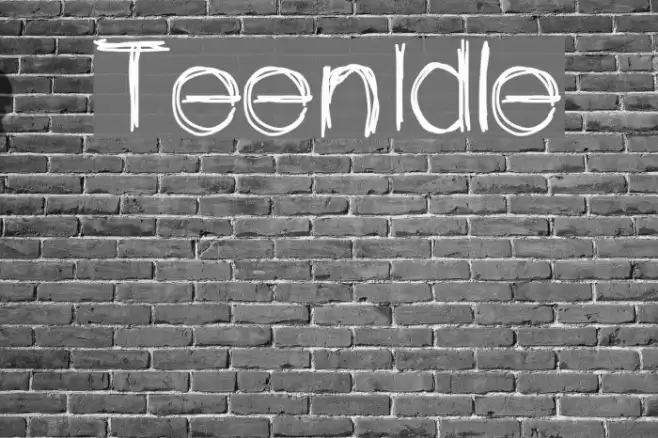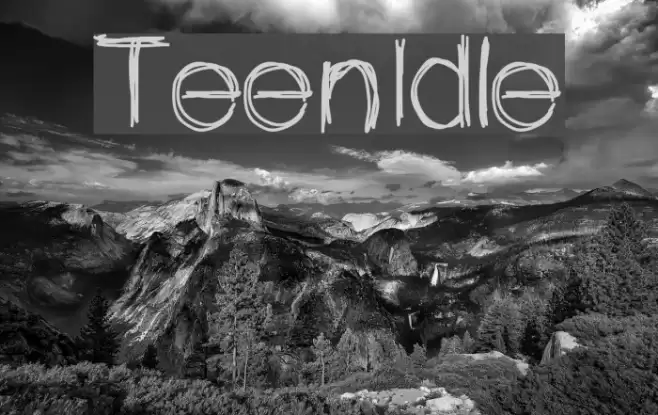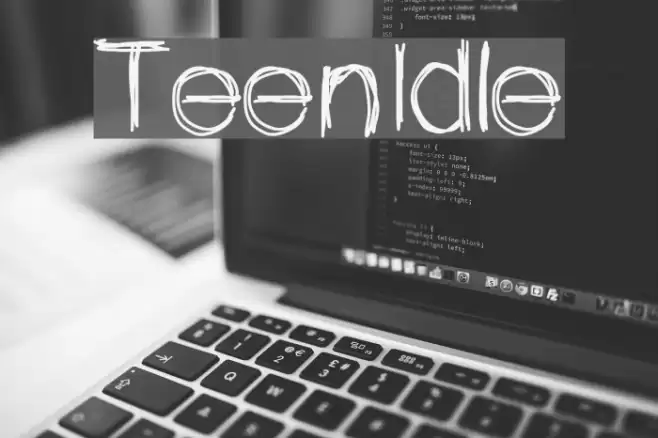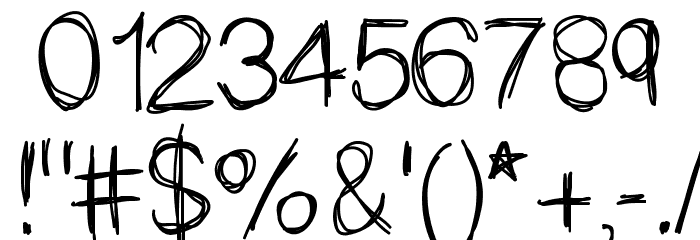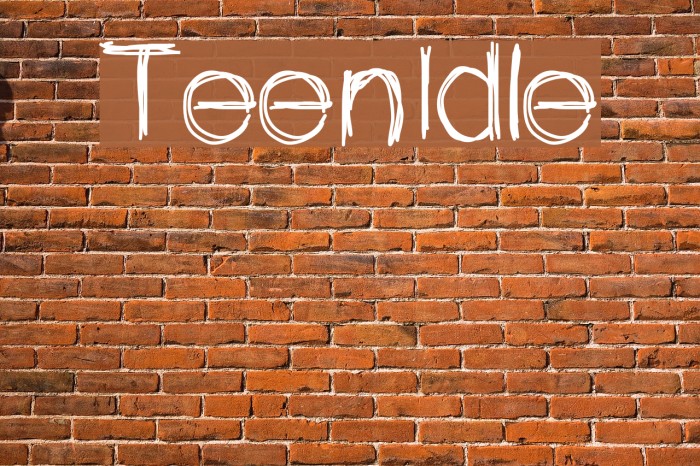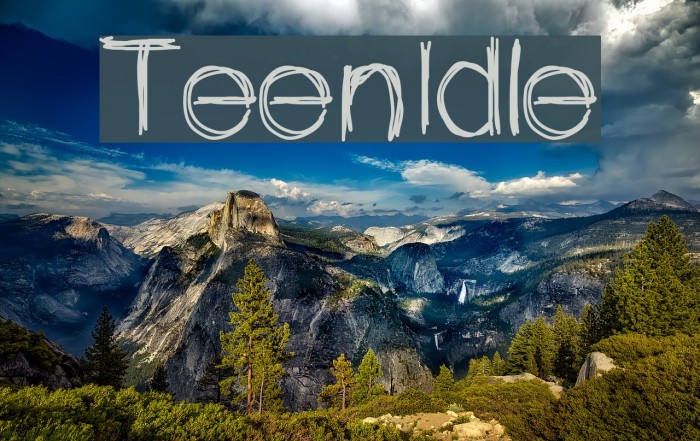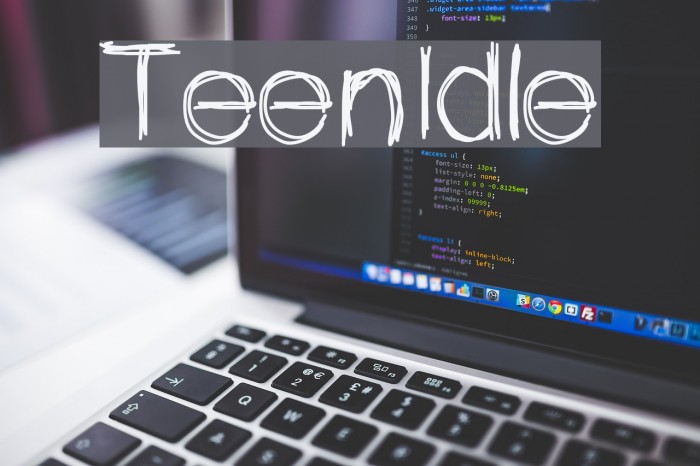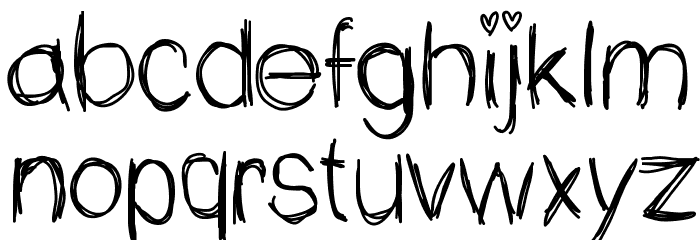
TeenIdle Font
TeenIdle Description
This font features a playful and informal style, characterized by its hand-drawn appearance. The letters have a sketch-like quality with uneven strokes and a slightly whimsical feel. Uppercase and lowercase letters maintain a consistent style, with some letters featuring unique embellishments, such as hearts above the 'i'. The numerals and special characters follow the same playful aesthetic, adding to the font's overall charm. This font is ideal for projects that require a casual and fun vibe, making it suitable for creative and artistic applications.
A playful, hand-drawn font with a whimsical and informal style from Uncategorized fonts.
- Proposed Projects: Ideal for greeting cards, children's book illustrations, playful branding, and casual social media graphics.
- Use Case: Logos, Headlines, Creative projects